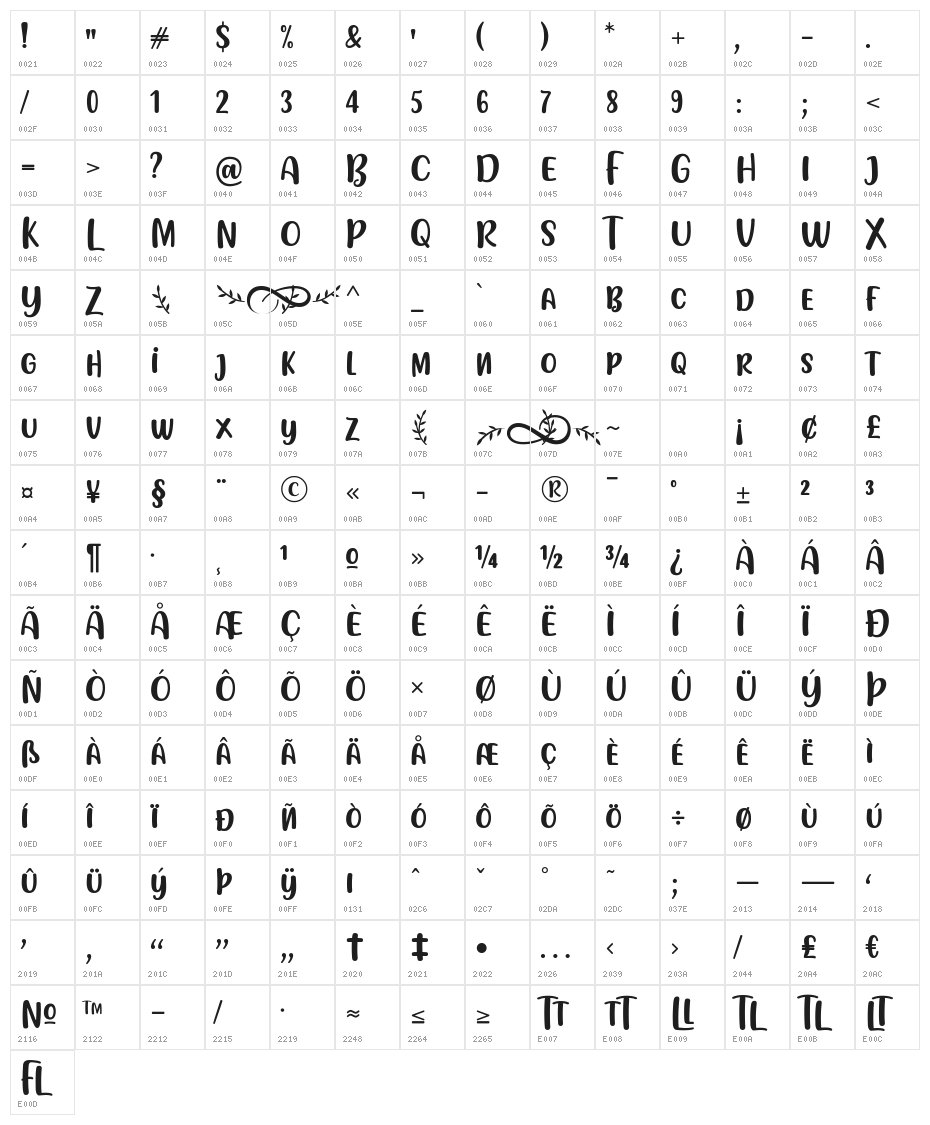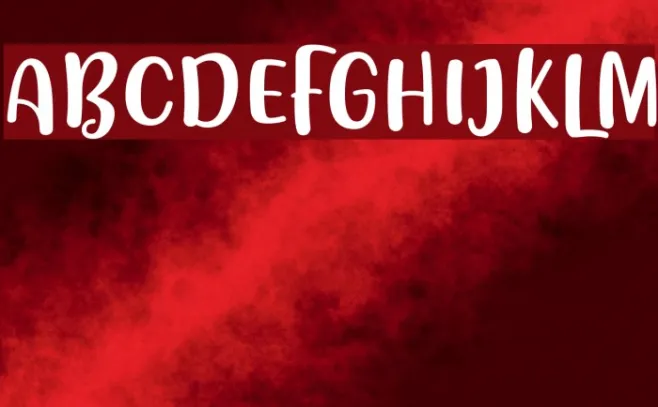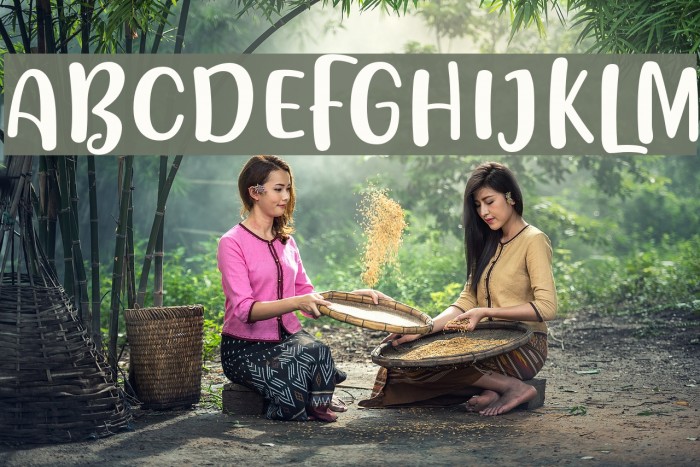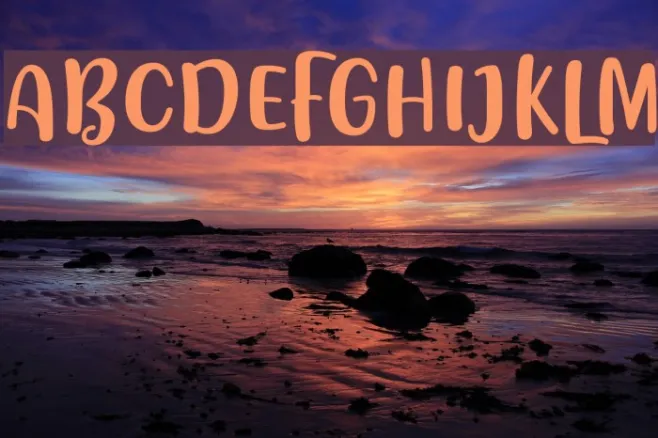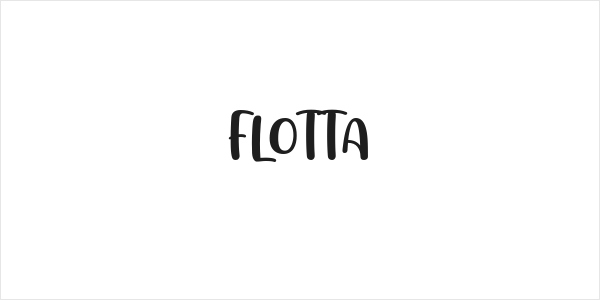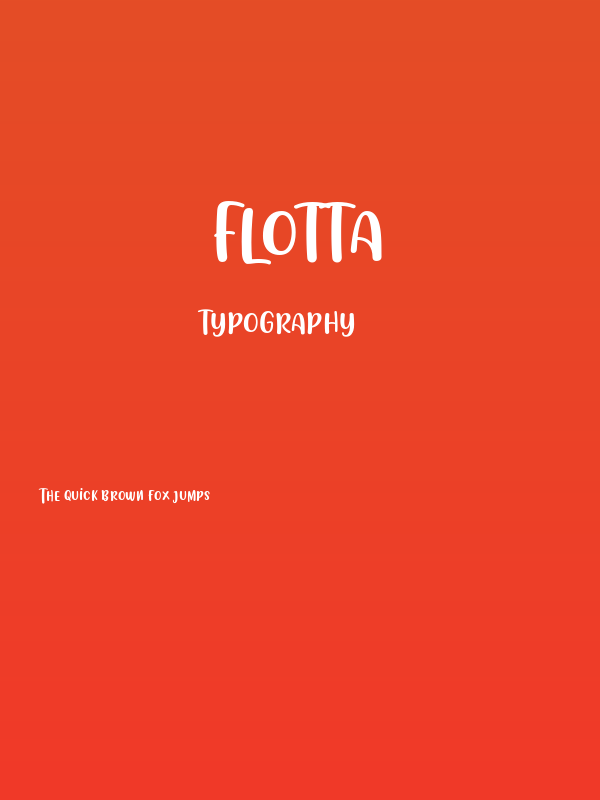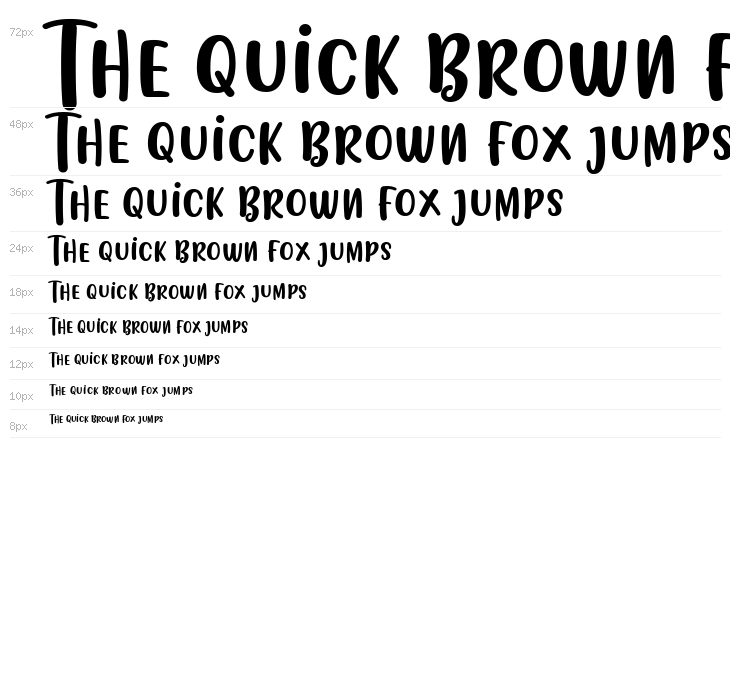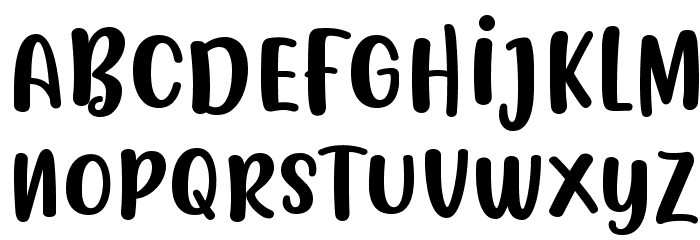
FLOTTA Font
FLOTTA Description
This font features a playful and bold style with rounded edges and a hand-drawn appearance. The characters are slightly condensed, giving it a compact look while maintaining readability. The uppercase and lowercase letters have a consistent stroke width, contributing to a uniform appearance. The numerals and special characters are designed to match the playful aesthetic, making the font suitable for creative and informal projects. The overall style is modern with a touch of whimsy, ideal for capturing attention in a fun and engaging way.
| Proposed Projects | Ideal for children's books, playful branding, event posters, and social media graphics. |